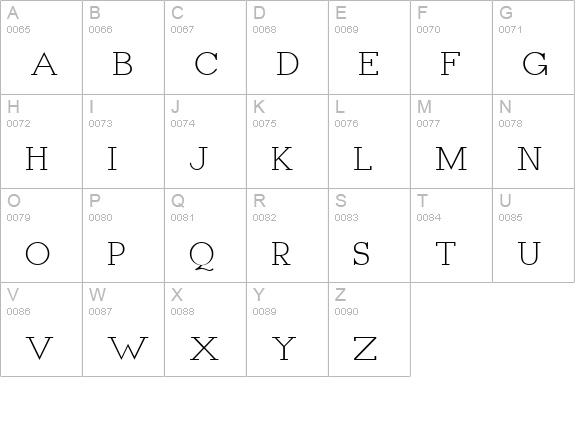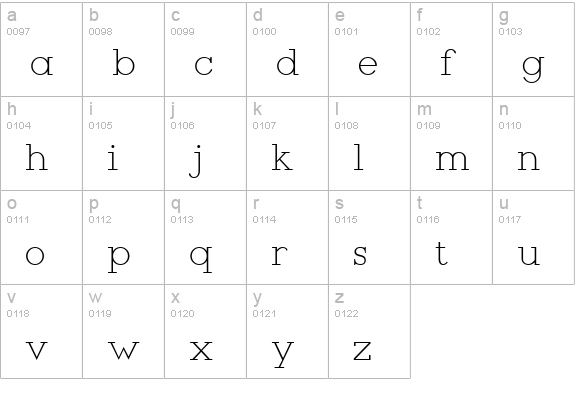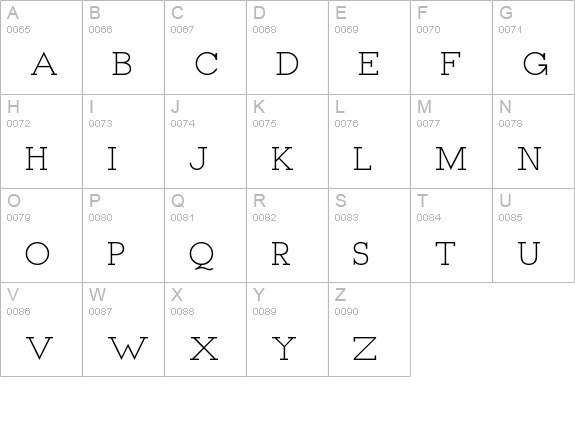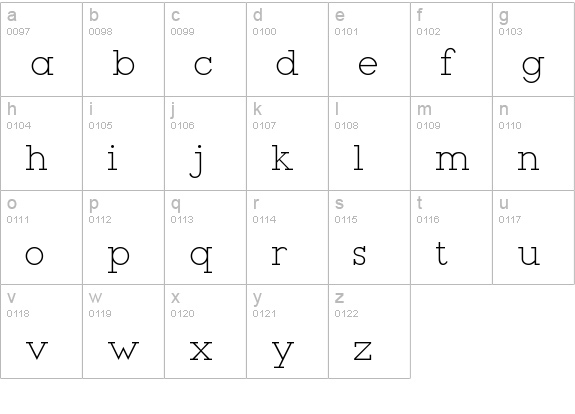
Bennington Font Details
The Bennington font is a classic and elegant typeface that exudes sophistication and style. With its clean lines and timeless appeal, Bennington is the perfect choice for projects that require a touch of refinement. This versatile font is suitable for a wide range of design applications, from elegant invitations to professional branding materials. What sets Bennington apart is its unique blend of tradition and modernity, making it a truly versatile typeface that can adapt to any design aesthetic. Its graceful curves and sharp edges create a harmonious balance that is both eye-catching and easy to read. Best of all, the Bennington font is available for free download at FontsMarket.com, allowing designers and creatives to access this premium typeface without any cost. Whether you're working on a personal project or a professional client assignment, Bennington is sure to elevate your design work to the next level.